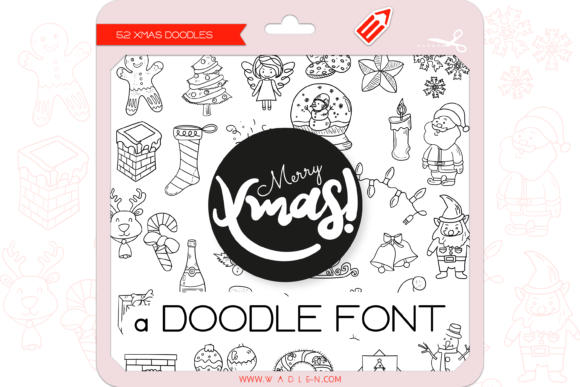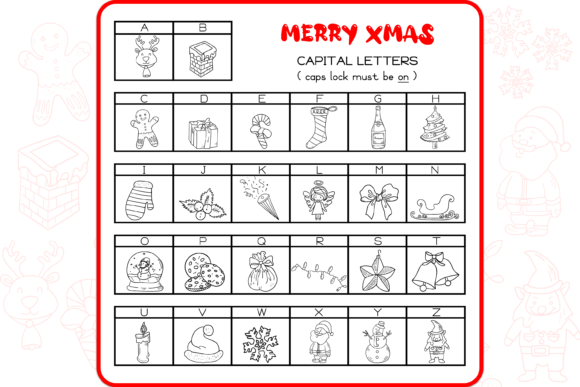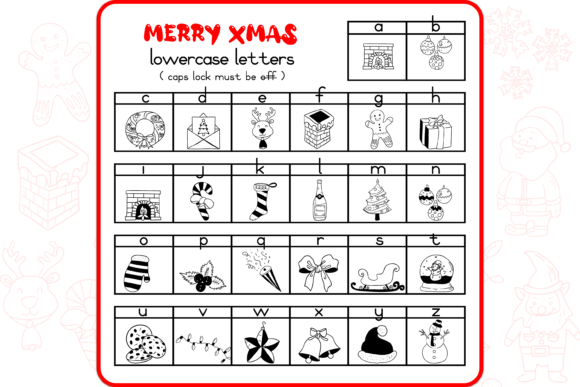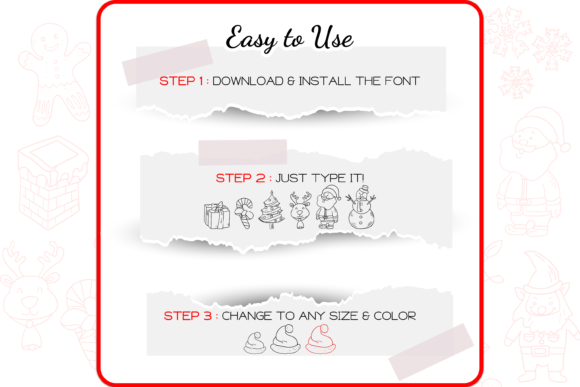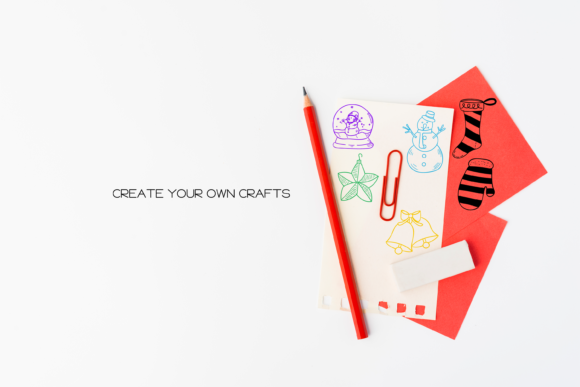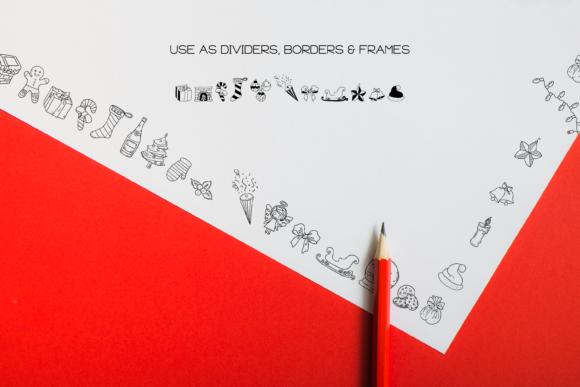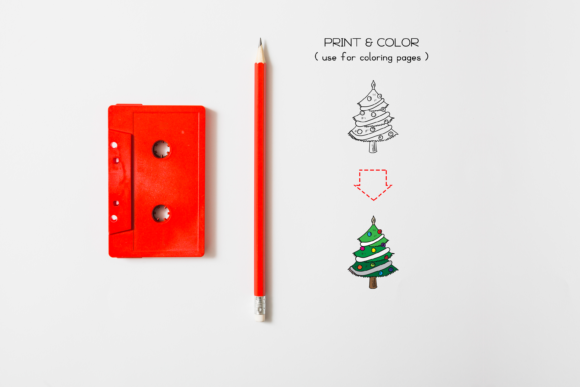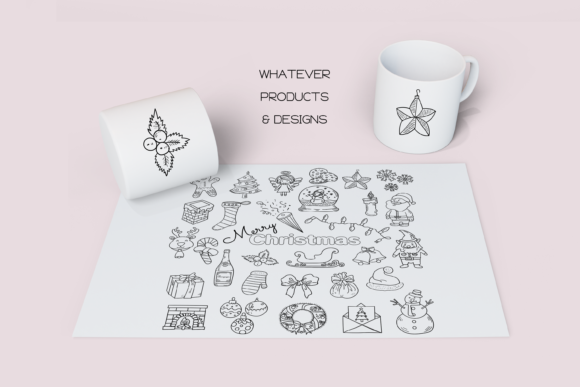
Merry Xmas Font
About Merry Xmas Font
Absolutely! Merry Xmas is a unique and interesting dingbats font that can add a festive and joyful touch to your creative ideas. With its collection of Christmas-themed icons, this font is perfect for enhancing your designs with a holiday spirit. Here are some ways you can use the Merry Xmas font to make your projects stand out:
1. Holiday Cards: Design stunning holiday cards using the Merry Xmas font. Incorporate the festive icons as decorative elements, borders, or dividers to complement your holiday greetings. Whether it’s for Christmas, New Year, or any other holiday celebration, the Merry Xmas font will make your cards truly stand out with its unique and festive icons.
2. Gift Tags and Labels: Personalize your gifts with Merry Xmas font by creating custom gift tags and labels. Use the holiday-themed icons as embellishments and combine them with handwritten or printed text to add a special touch to your presents. Your gifts will be even more delightful with the unique and festive elements of the Merry Xmas font.
3. Party Invitations: Create eye-catching party invitations using the Merry Xmas font. Use the holiday icons as decorative elements to set the festive tone for your event. Whether it’s a Christmas party, holiday gathering, or winter-themed celebration, the Merry Xmas font will bring a unique and joyful aesthetic to your invitations.
4. Social Media Graphics: Make your social media posts and graphics more festive with the Merry Xmas font. Use the holiday icons as visual elements to enhance your holiday-themed content. Whether you’re sharing holiday quotes, promotions, or simply spreading the holiday spirit, the Merry Xmas font will make your designs stand out with its unique and cheerful icons.
5. Holiday Decorations: Add a touch of Christmas magic to your holiday decorations with the Merry Xmas font. Incorporate the festive icons into banners, ornaments, or signs to create a whimsical and joyful atmosphere. The unique and interesting elements of the Merry Xmas font will make your holiday decor truly special.
6. Digital Designs: Infuse your digital designs with the holiday spirit using the Merry Xmas font. Use the festive icons as decorative elements, icons, or borders in websites, presentations, or digital greetings. The font’s unique and interesting dingbats will bring a festive touch to your digital creations.
Remember to explore different combinations of the Merry Xmas font, other typography, and color schemes to create unique and visually captivating designs. Let the unique and interesting icons of the Merry Xmas font make your creative ideas stand out and bring the joy of the holiday season to your projects!